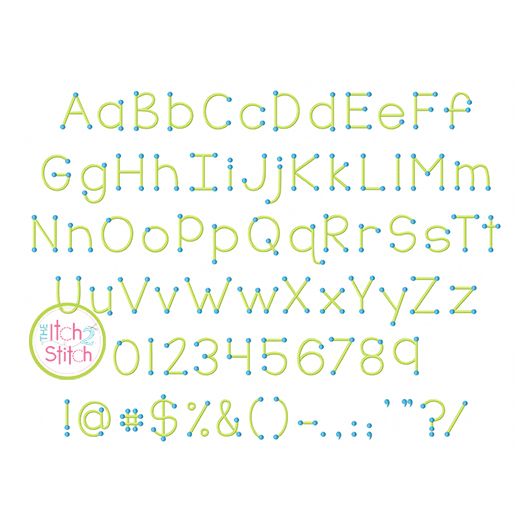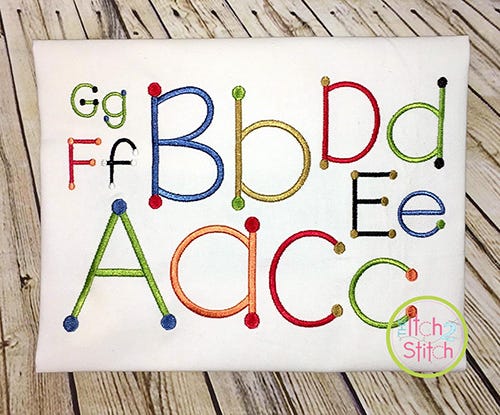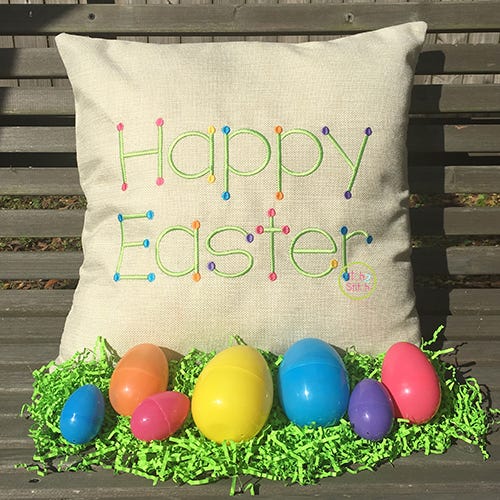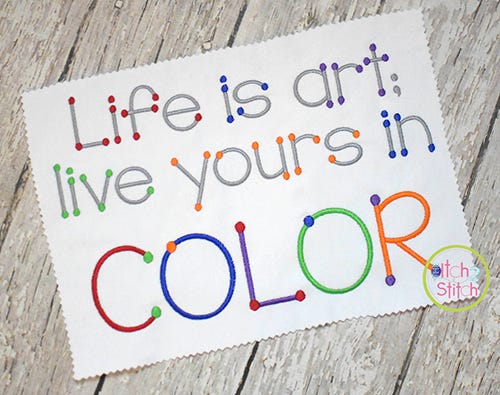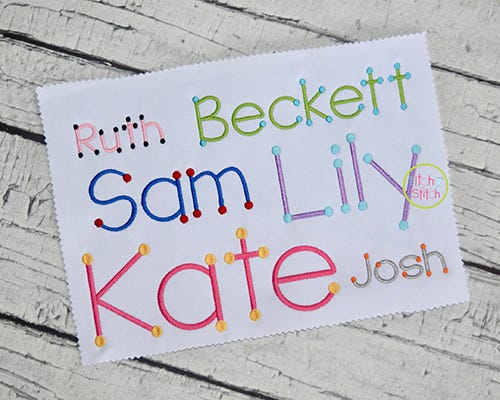
True Colors Two Color Satin Stitch Embroidery Font
The small sizes (1" through 2.5") have satin stitch dots; the large sizes (3" through 4") have split satin stitch dots.